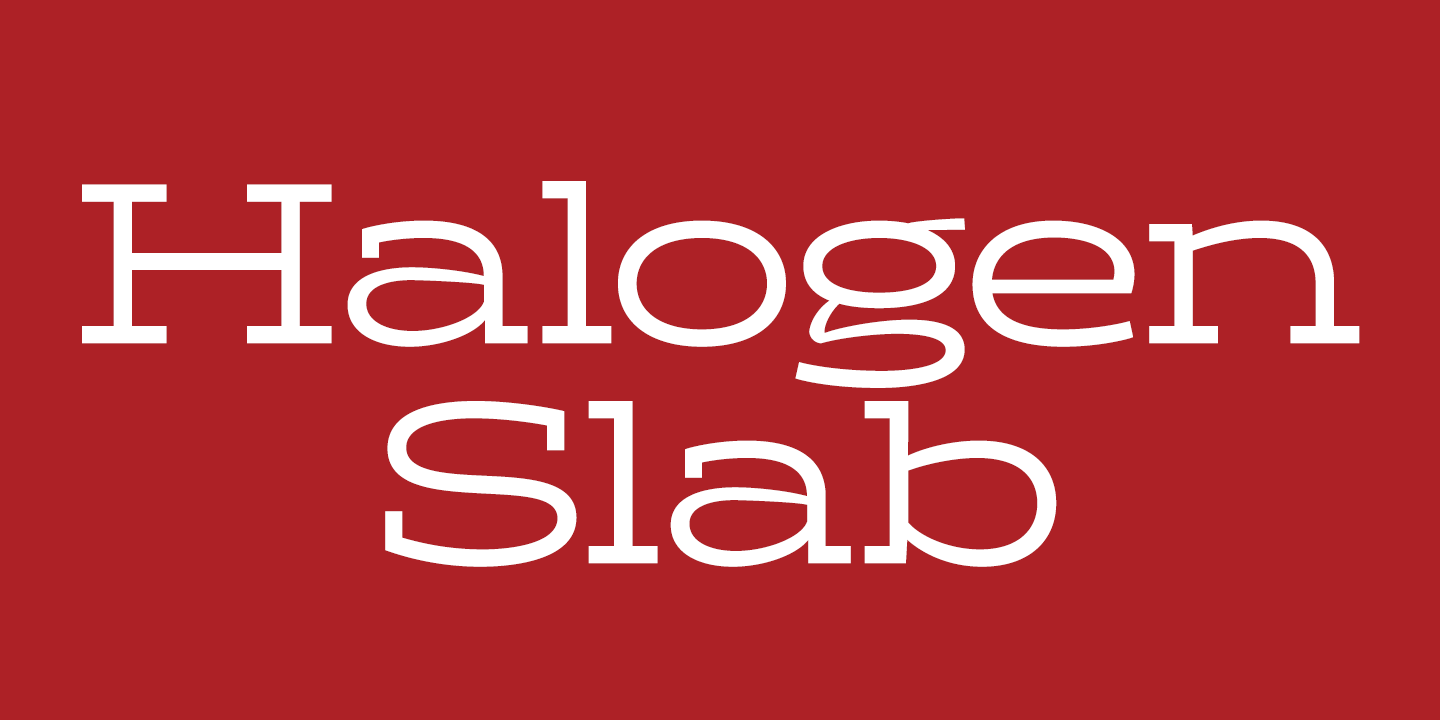
Halogen Slab Font Free Download – A Bold & Modern Slab Serif for Impactful Designs
Looking for a font that combines contemporary style with rock-solid presence? Halogen Slab Font Free Download delivers a striking slab serif design perfect for editorial headlines, tech branding, packaging, and any project needing confident typography with a modern edge. Its chunky serifs and geometric foundations create exceptional visual authority.
Why Choose Halogen Slab Font?
Halogen Slab Font Free Download stands out with its powerful features:
Confident slab serifs with geometric precision
Multiple weights from Light to Black for dynamic layouts
Excellent readability in both print and digital media
Tech-inspired aesthetic perfect for modern brands
Halogen Slab Font Free Download – Command Attention
Make a bold statement with this versatile typeface for:
Tech startup branding & app interfaces
Magazine headlines & editorial design
Product packaging & label design
Advertising campaigns & social media graphics
Designer Tip: Pair with clean sans-serifs for perfect contemporary contrast!
(Typography Tip: Use the Bold weight for maximum presence in headlines!)